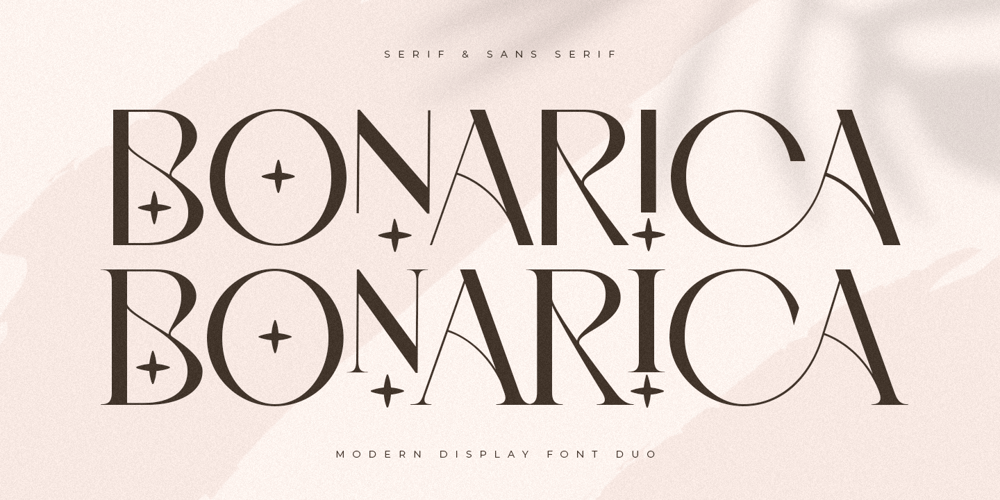
Bonarica Font Family was designed by Zamroni Hamzah and published by Sensatype Studio. Bonarica contains 2 styles and family package options. Bonarica is designed with a versatile and modern style that will suit any project. The font is available in two versions, a serif and sans serif version. They are perfect for use in print projects, and powerful to attention-grabbing branding projects.Bonarica font duo ready with: Any options serif and sans serif to get creative variations 4 format already Preview as a inspirations that you can do with Bonarica font Ready with Lowercase and Uppercase characters Wish you enjoy our font. ๐